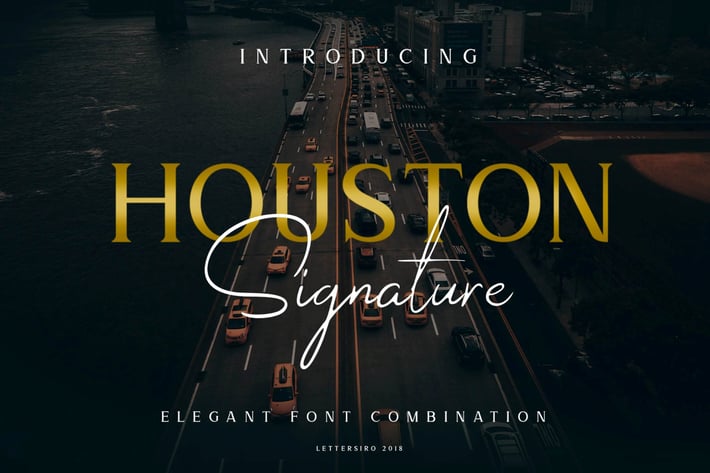
Houston Business Font
We will introduce our new font called Houston. Houston is a beautiful font combination (script and serif). The houston serif comes with all caps, and the houston script comes with 4 variations (regular, light, slant, and light slant).
This font is made for make your project easy and classy. Houston is perfect for wedding, business, web banner, web presentation, logo, signature, watermark, and any other design project.
The houston is simple font, easy to use, classy and elegant. The houston is here for you.
Highlights:
4 Beautiful Houston Script & 1 Houston Serif
The perfect font choice for wedding, business, web banner, web presentation, logo, signature, watermark, and any other design project
Multilingual support AÀÁÂÃÄÅÇDÐEÈÉÊËIÌÍÎÏNÑOÒÓÔÕÖUÙÜÚÛÝŸỲŸÆßÞþ